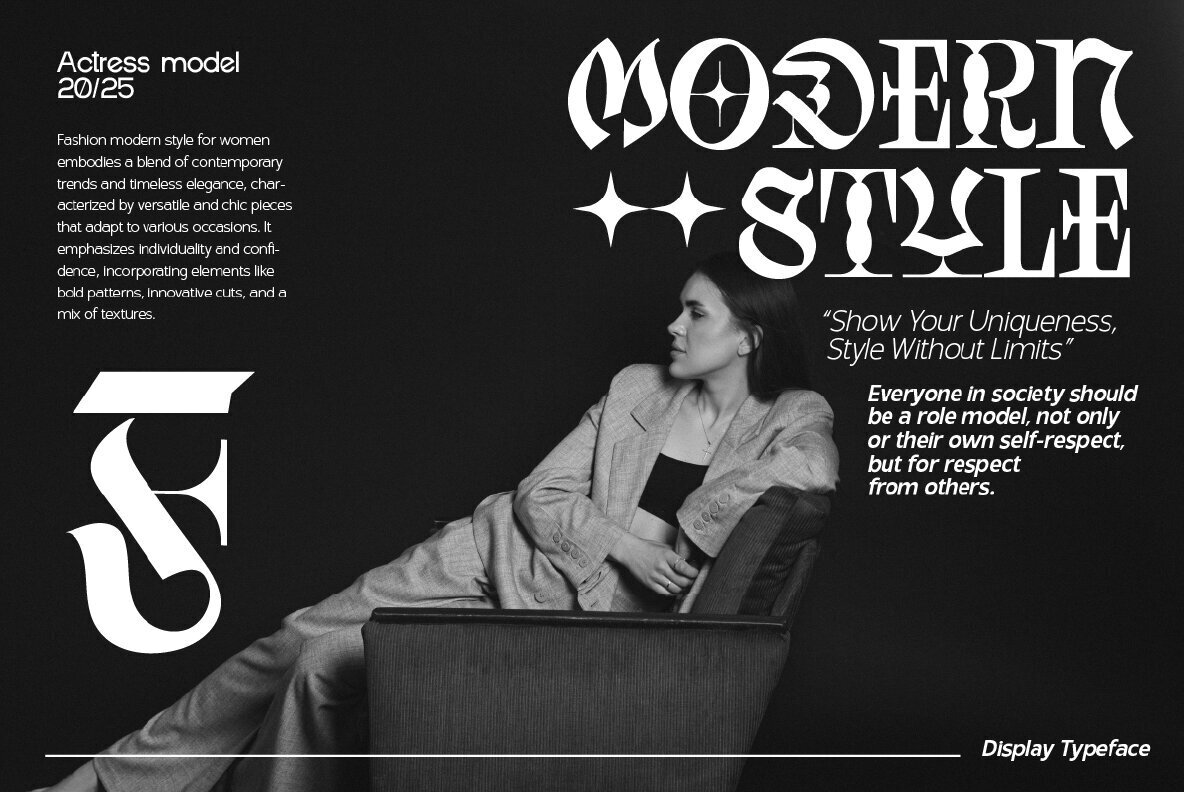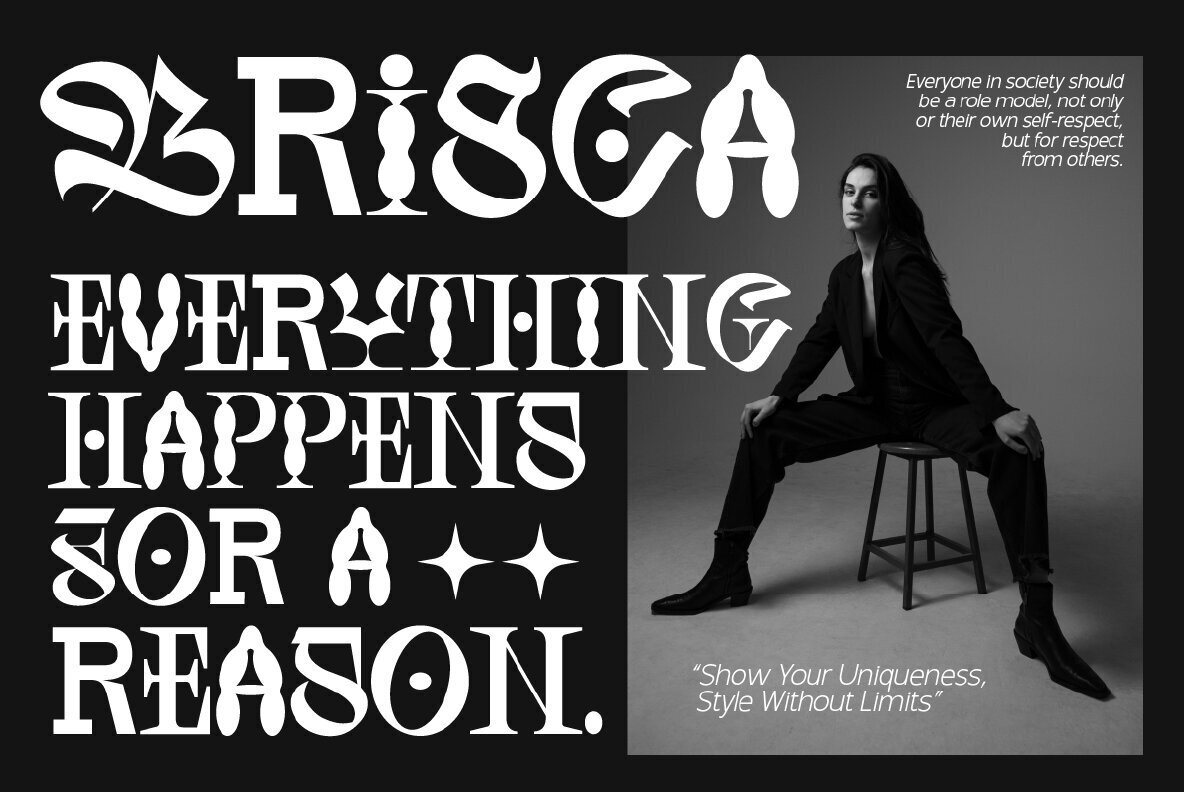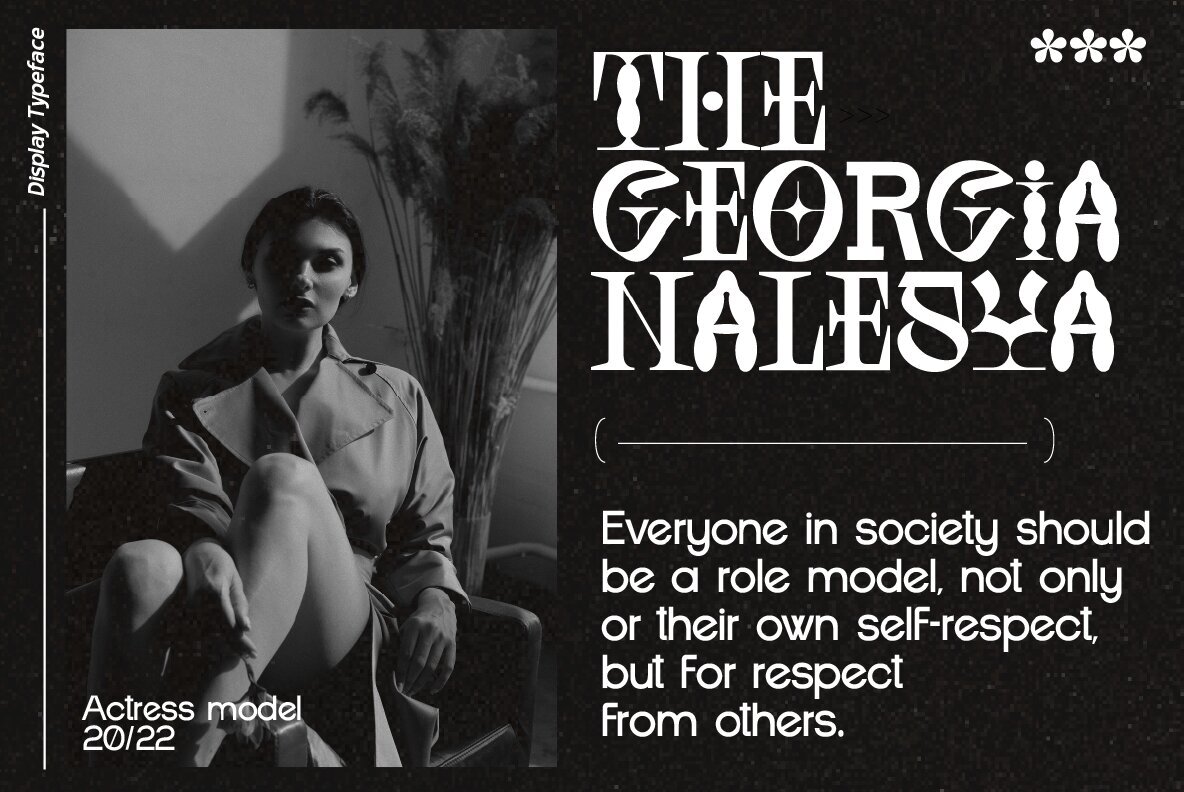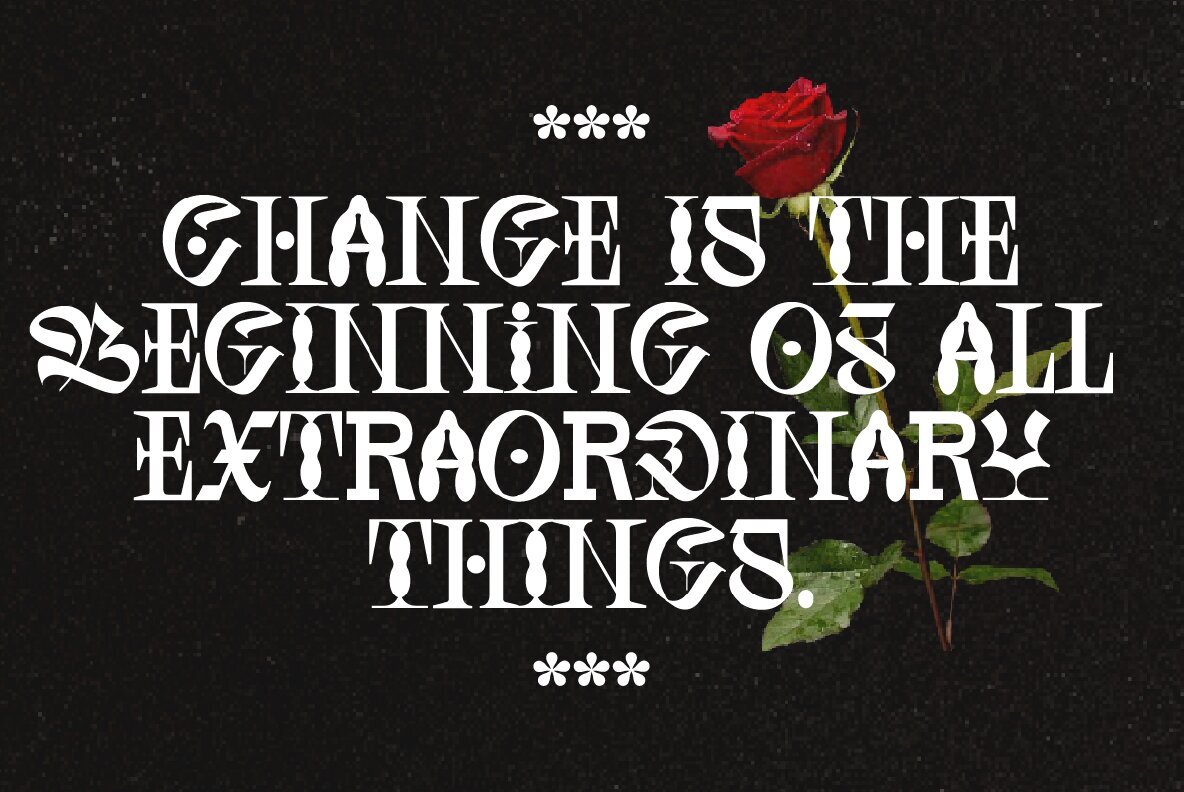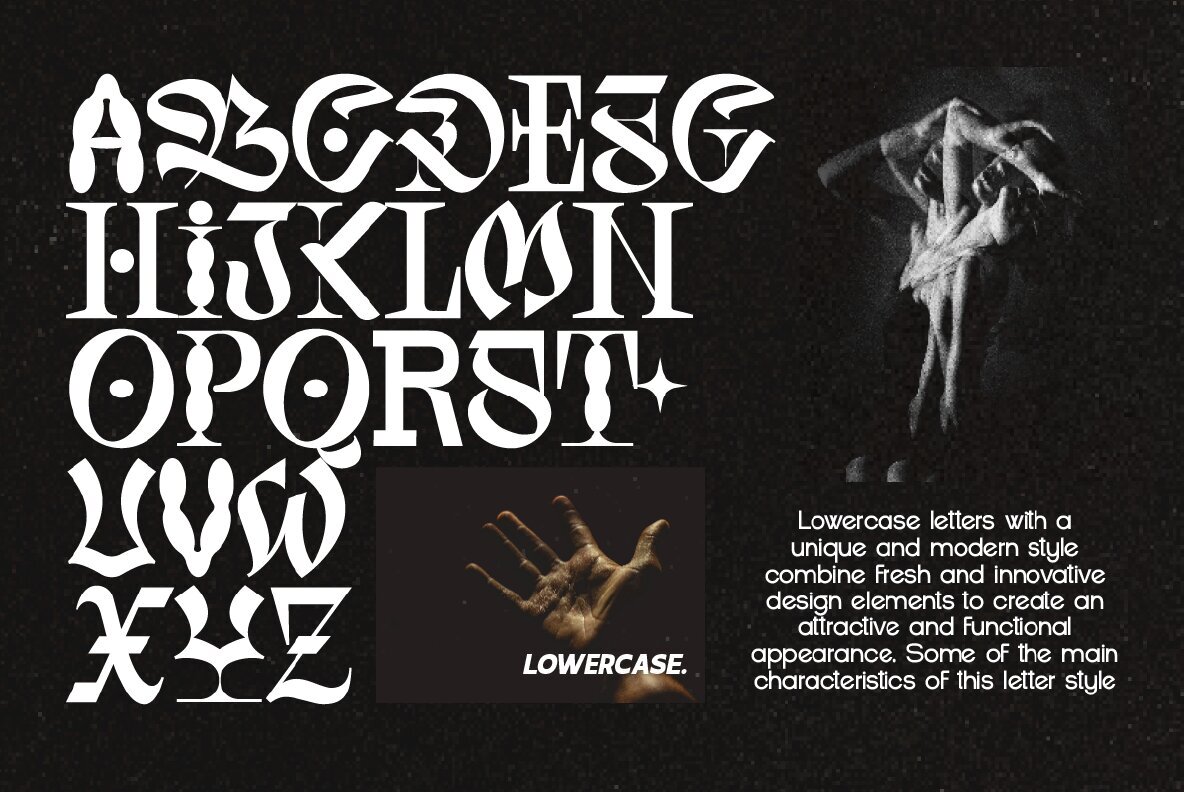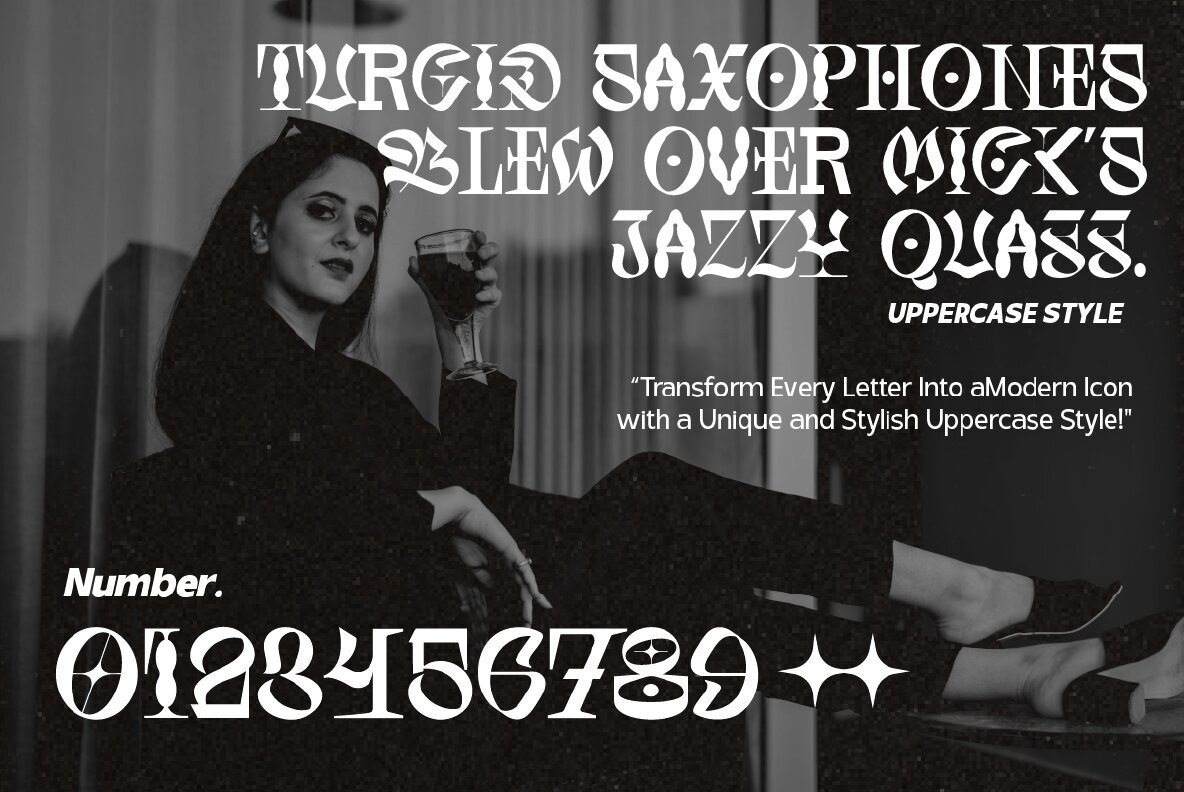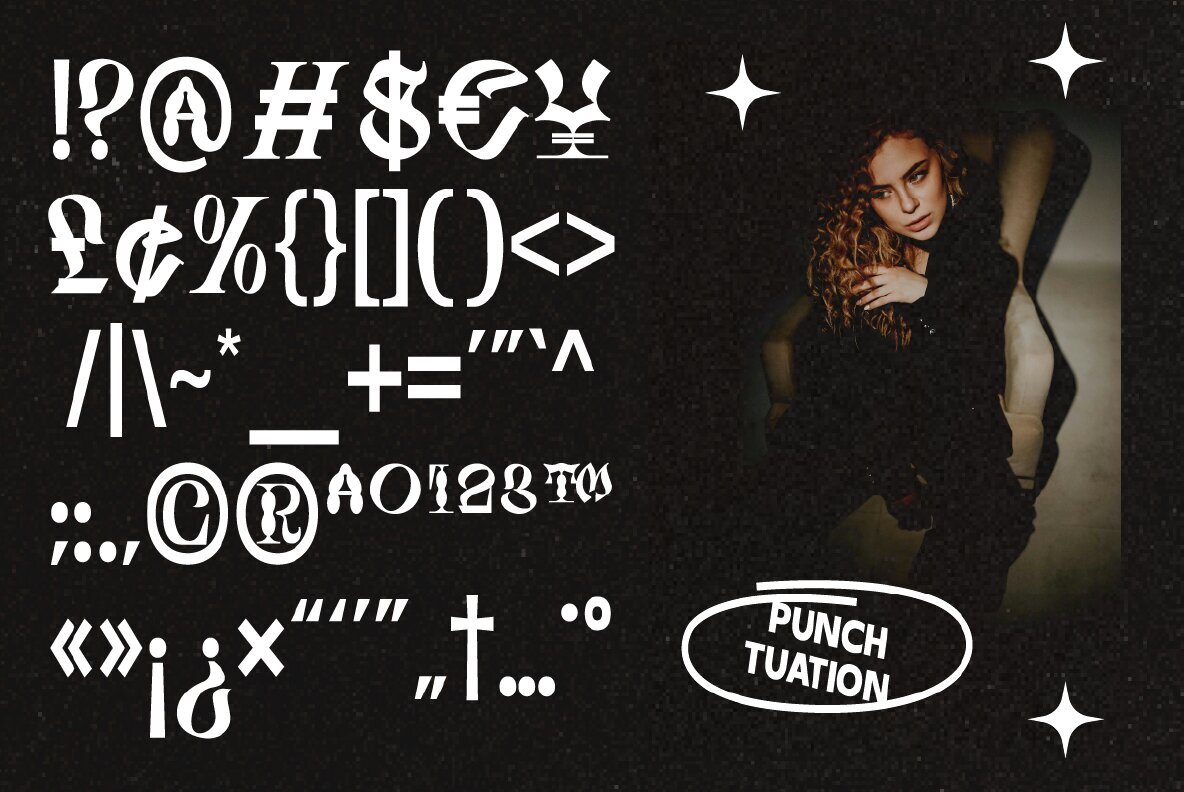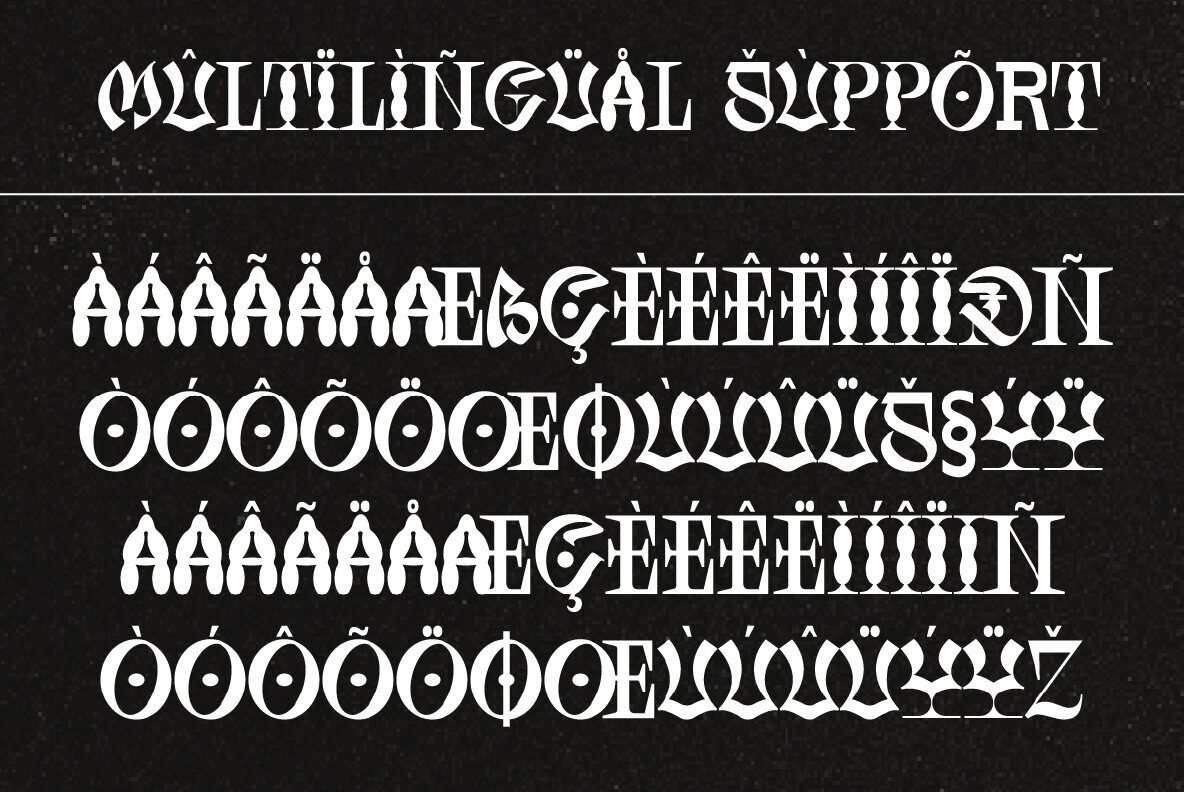
Brocky Whiesed Font
Brocky Whiesed
Brocky Whiesed is an experimental font designed by Rony Rizki Jaya and published by Ronny Studio in 2025. This font has modern and elegant characteristics, with a unique and innovative design. With its striking use of decorative elements, this font is suitable for a variety of creative projects such as posters, branding, apparel designs, social media, album covers, and movie posters. Brocky Whiesed combines classic elements with a modern touch, creating an attractive look that is different from other fonts. Features: